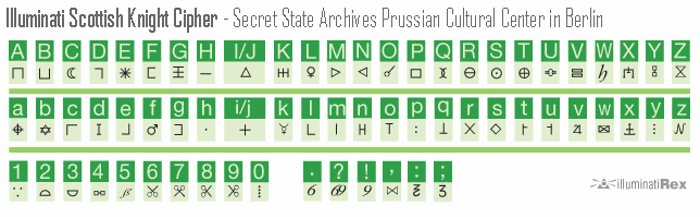
Illuminati Dirigens Berlin Font
Font based on the 1776 Bavarian Illuminati Dirigens or Scottish Knight cipher found in the Secret State Archives Prussian Cultural Center in Berlin.